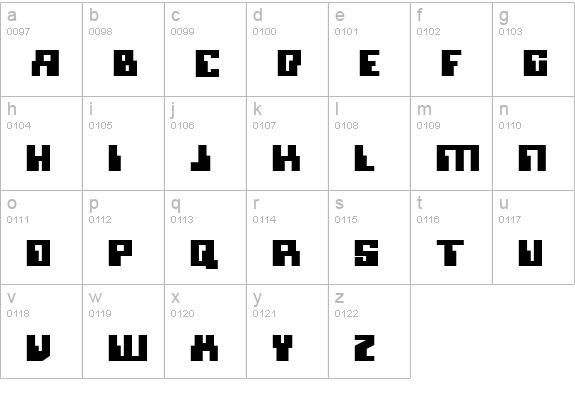
Introducing Micronian font, a sleek and modern typeface designed to elevate your design projects to the next level. This versatile font exudes style and sophistication, making it perfect for a wide range of applications from branding to editorial design. With its clean lines and contemporary feel, Micronian font is sure to make a lasting impression on your audience. What's more, Micronian font is available for free download at FontsMarket.com. This means you can access this premium font without any cost, making it a valuable addition to your font library. Don't miss out on the opportunity to enhance your designs with the elegant and timeless appeal of Micronian font. Download it today and start creating stunning visuals that stand out from the crowd.